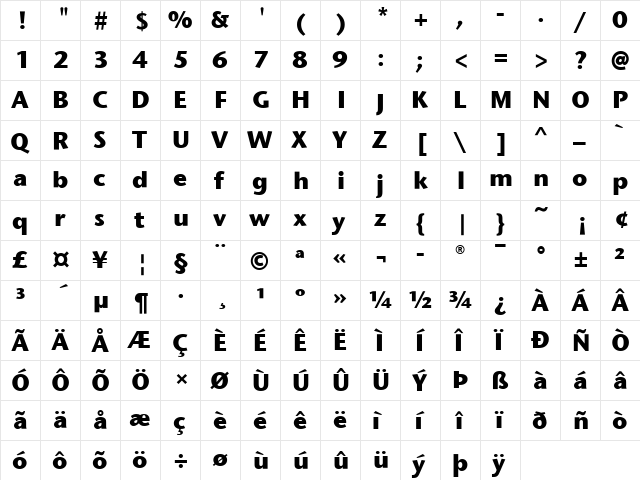
Stone Sans ITC Medium Bold
Design Context for Stone Sans ITC Medium Typeface
Stone Sans ITC Medium takes a measured approach to typography — its balanced proportions and neutral character make it a reliable workhorse for both digital and print work. The heavy weight commands attention and anchors typographic hierarchies.
Pro Tip: Use Stone Sans ITC Medium in both headline and body roles to test its range before committing to a single application.